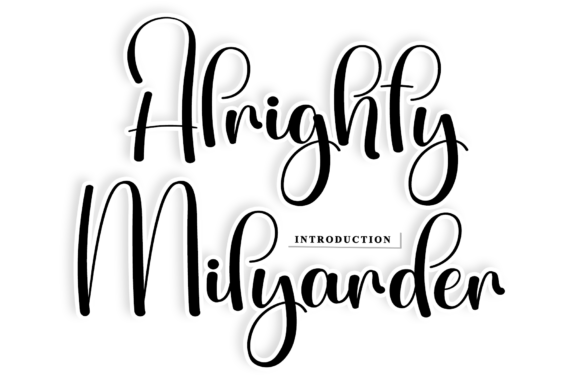
The Alrighty Milyarder Font: A Designer’s Dream Come True
I’ll never forget the moment I stumbled upon the Alrighty Milyarder font. I was working on a branding project for a boutique bakery, and I was struggling to find the perfect font to capture their artisanal spirit. The client wanted something that felt customized, yet elegant, and I was on a mission to deliver. That’s when I discovered Alrighty Milyarder, a sophisticated and rhythmic script font that instantly stole my heart.
- ✨ The sweeping, looping ascenders that give it a sense of artisanal flair
- ✅ The warm, organic aesthetic that feels like hand-crafted artistry
- 💫 The perfect balance of calligraphic style and elegance
- 🎨 The versatility to work beautifully in various design contexts, from food branding to lifestyle marketing
While Alrighty Milyarder is an amazing font, there are a few things to keep in mind:
- ⚠️ Some of the longer words or phrases might require manual kerning for optimal spacing
- 🤔 The font’s uniqueness might make it less suitable for very formal or traditional designs
- Experiment with OpenType features, like swashes and stylistic alternates, to add personality to your text
- Dive into the OpenType panel to access glyphs, ligatures, and other advanced typographic features
The Story Behind Alrighty Milyarder
While the true story behind Alrighty Milyarder’s creation might be unknown, it’s easy to imagine a designer with a passion for calligraphy and hand-lettering crafting this font. Perhaps they wanted to create a font that felt both elegant and approachable, perfect for artisanal brands and creative projects. Whatever the inspiration, Alrighty Milyarder is a true gem in the world of typography.
Q: What makes Alrighty Milyarder suitable for artisanal food branding?
A: Alrighty Milyarder’s warm, organic aesthetic and sweeping ascenders evoke a sense of hand-crafted artistry, making it perfect for artisanal food brands that want to convey a sense of uniqueness and care.
Q: How does Alrighty Milyarder compare to other script fonts?
A: Alrighty Milyarder stands out from other script fonts due to its unique balance of elegance and warmth. Its looping ascenders and organic feel make it particularly well-suited for creative, artisanal, and lifestyle projects.